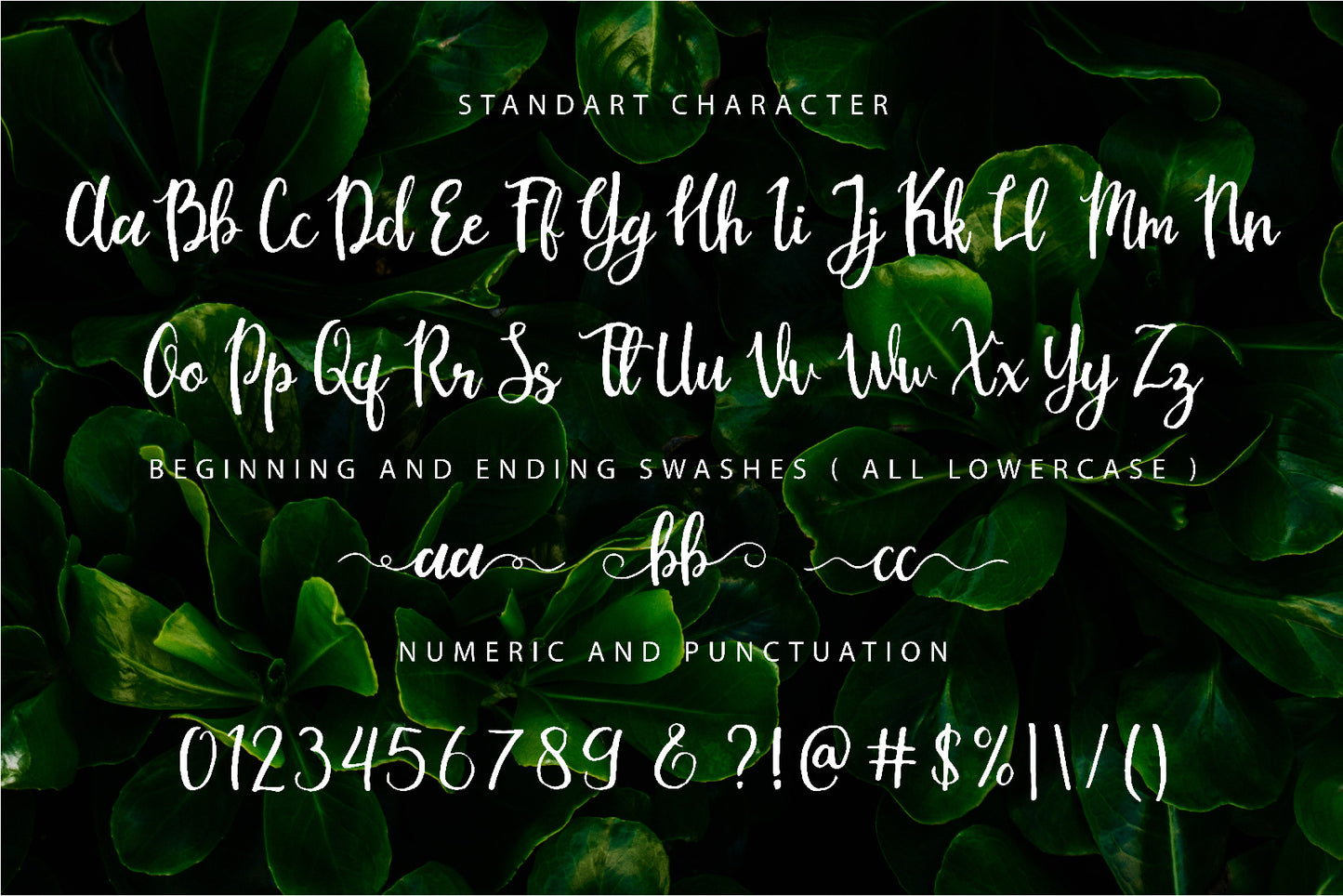
Free Mouley Modern Script Font
Today we're glad to feature this free mouley – modern script font. Pixelify has created this amazing and beautiful free font. Easily amaze your audience with this beautiful font and make your graphic designs pop up from the crowd.